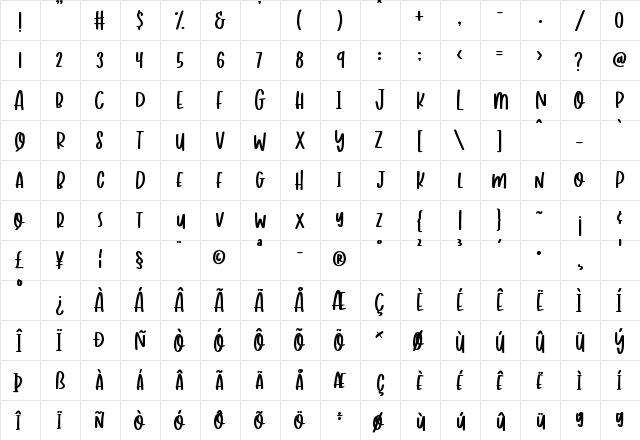
Hey Charlie Regular
| Designer | Dimas Prasetyo |
Design Context for Hey Charlie Typeface
Hey Charlie is a composed and adaptable typeface that performs quietly and consistently across a wide range of design contexts.